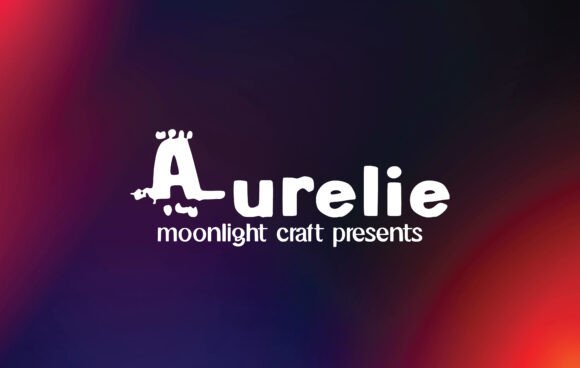
Aurelie Font: The Ultimate Go-to Favorite for Creative Projects
In the world of typography, a font can make all the difference in bringing your creative ideas to life. Introducing Aurelie Font, a versatile and eye-catching typeface designed to be your go-to favorite for a wide range of projects. With its clarity, readability, and stylish personality, Aurelie Font is the perfect choice for designers, artists, and writers looking to add a touch of sophistication and flair to their work.
What Makes Aurelie Font So Special?
Aurelie Font is crafted to be clear and easy to read, making it an excellent choice for both titles and body text. Its clean lines, elegant curves, and balanced proportions ensure that your text is not only legible but also visually appealing. Whether you’re working on magazine covers, t-shirts, social media posts, branding, wedding invitations, or greeting cards, Aurelie Font fits right in with style and personality.
Key Features of Aurelie Font
- Versatility: Aurelie Font is designed to be versatile, making it suitable for a wide range of creative projects.
- Readability: Its clear and easy-to-read design ensures that your text is legible, even at small sizes.
- Elegance: Aurelie Font’s elegant curves and balanced proportions add a touch of sophistication to your designs.
- Personality: This font has a unique personality that shines through in various design applications.
Perfect for Various Design Applications
Aurelie Font is an excellent choice for various design applications, including:
Magazine Covers
Make a statement with Aurelie Font on your magazine covers. Its bold and eye-catching design ensures that your title stands out, grabbing the attention of potential readers.
T-Shirts and Apparel
Add a touch of style and personality to your t-shirts and apparel with Aurelie Font. Its clear and readable design ensures that your message or logo is easily recognizable.
Social Media Posts
Elevate your social media posts with Aurelie Font. Its elegant and sophisticated design ensures that your content stands out in a crowded feed.
Branding and Logo Design
Aurelie Font is an excellent choice for branding and logo design. Its unique personality and versatility ensure that your brand identity is memorable and recognizable.
Wedding Invitations and Greeting Cards
Add a touch of elegance and sophistication to your wedding invitations and greeting cards with Aurelie Font. Its clear and readable design ensures that your message is easily understood.
Why Choose Aurelie Font?
With so many fonts available, why choose Aurelie Font? Here are just a few reasons:
Unique Personality
Aurelie Font has a unique personality that sets it apart from other fonts. Its elegant curves and balanced proportions ensure that your designs stand out.
Versatility
Aurelie Font is designed to be versatile, making it suitable for a wide range of creative projects.
Readability
Its clear and easy-to-read design ensures that your text is legible, even at small sizes.
In conclusion, Aurelie Font is the ultimate go-to favorite for creative projects. Its versatility, readability, elegance, and personality make it an excellent choice for designers, artists, and writers looking to add a touch of sophistication and flair to their work. Whether you’re working on magazine covers, t-shirts, social media posts, branding, wedding invitations, or greeting cards, Aurelie Font is the perfect choice.